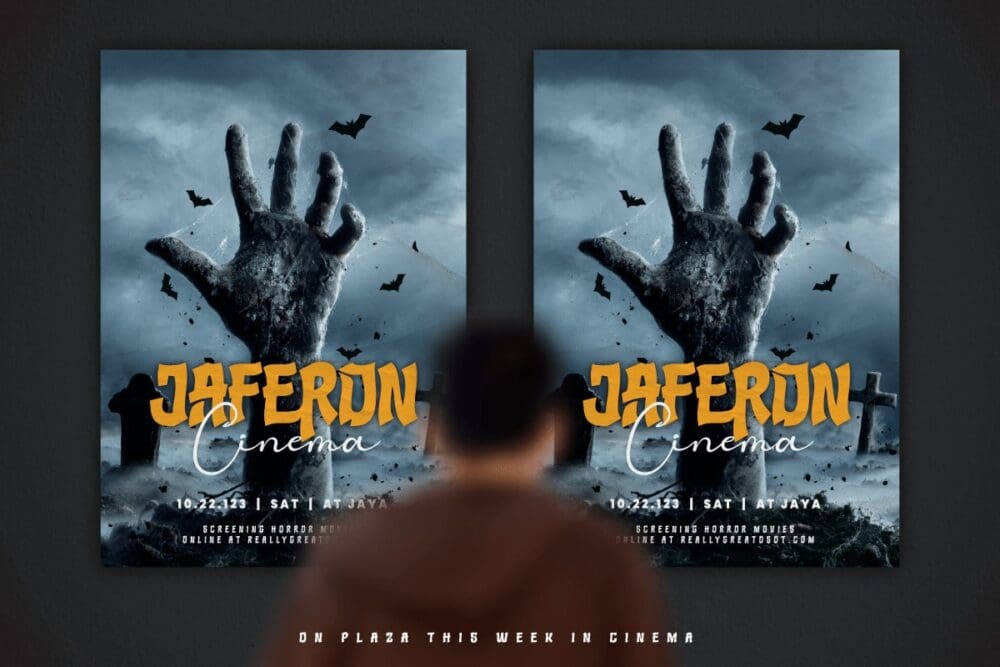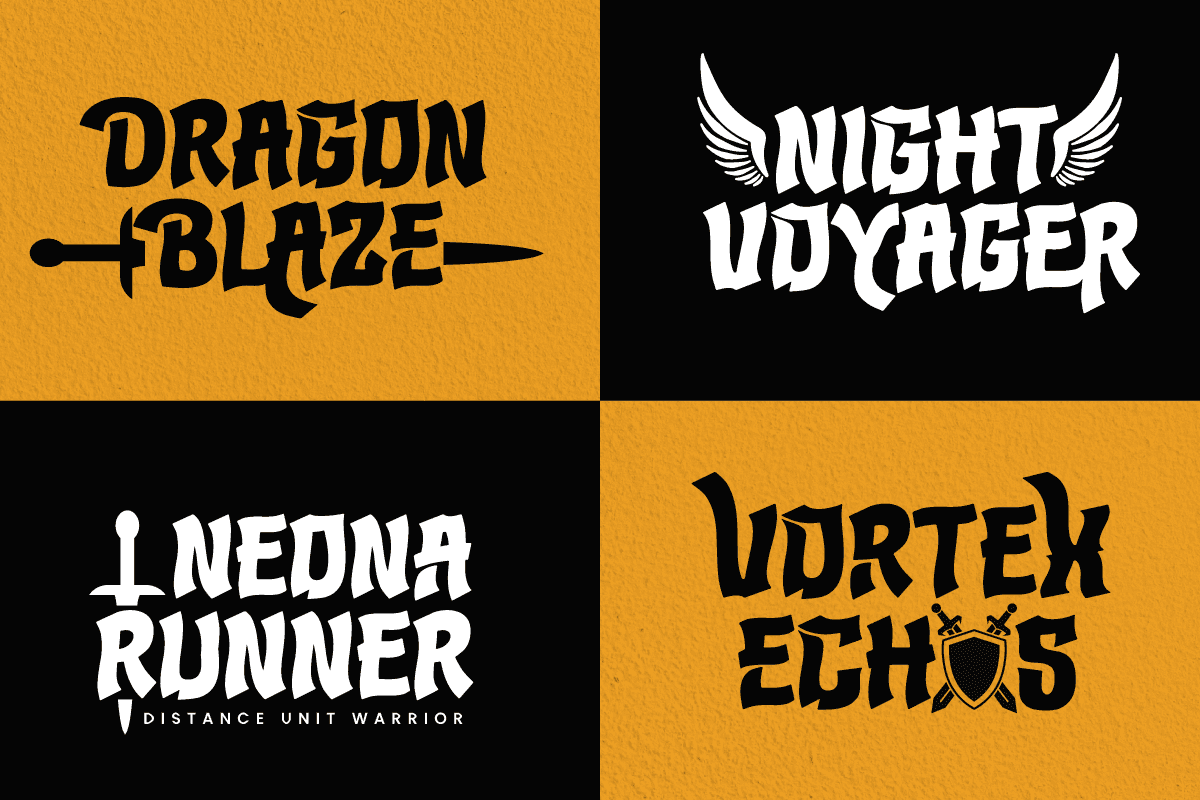
Jaferon Font
Jaferon is a display font that comes with a stunning superhero style. Ready to take the lead in projects that call for a bold, bold touch and a bold look. With adorable and strong characters, Jaferon is suitable for film, game, and design worlds that require moving messages. You can feel the boldness in every line and curve of this typography. Not just a display, Jaferon is also equipped with advanced features. Ligatures and alternates give a new dimension to your designs, allowing you to create interesting and unique variations.